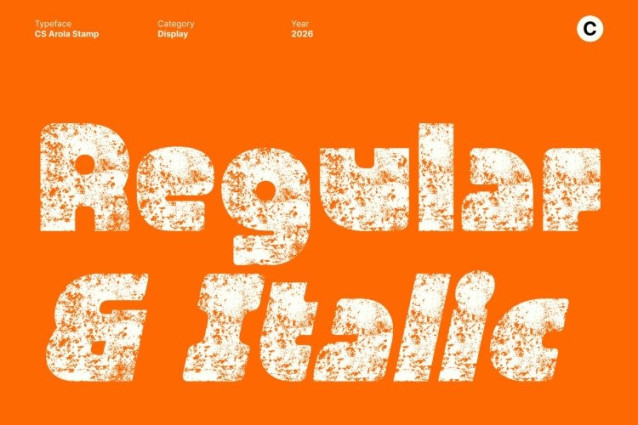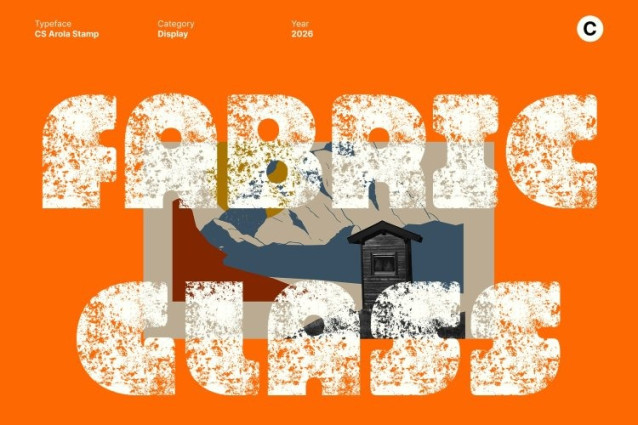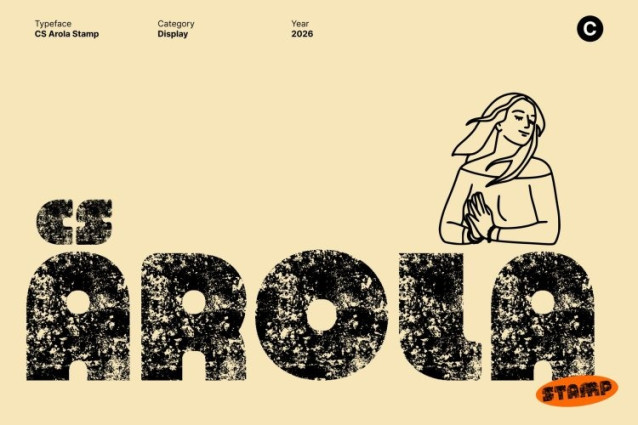
CS Arola Stamp Font This is a bold display font built with chunky letterforms and powerful weight, designed to deliver instant visual impact. Its strong construction gives every word a confident and energetic presence, making the font feel bold, expressive, and impossible to ignore. The generous proportions ensure clarity while maintaining a friendly, modern tone.
Funky Shapes with Playful Personality
What defines this font is its funky and playful character. Rounded contours and lively shapes introduce rhythm and movement, creating a design that feels cheerful, modern, and full of personality. This expressive structure allows the font to feel confident without being rigid, making it ideal for creative projects that want boldness with warmth.
Stamp Texture with Vintage Artistic Character
The stamp effect adds a layer of vintage charm and artistic texture to the bold forms. Slight imperfections, rough edges, and uneven ink details create an authentic stamped look that feels handcrafted and unique. This texture softens the bold weight while giving the font a retro, tactile quality that enhances visual depth and character.
Perfect for Expressive and Impactful Branding
This is perfect for headlines, posters, packaging, social media graphics, and expressive branding. Its combination of chunky strength, funky personality, and vintage stamp texture makes it an excellent choice for brands and designs that want to feel confident, playful, and memorable bold enough to stand out.